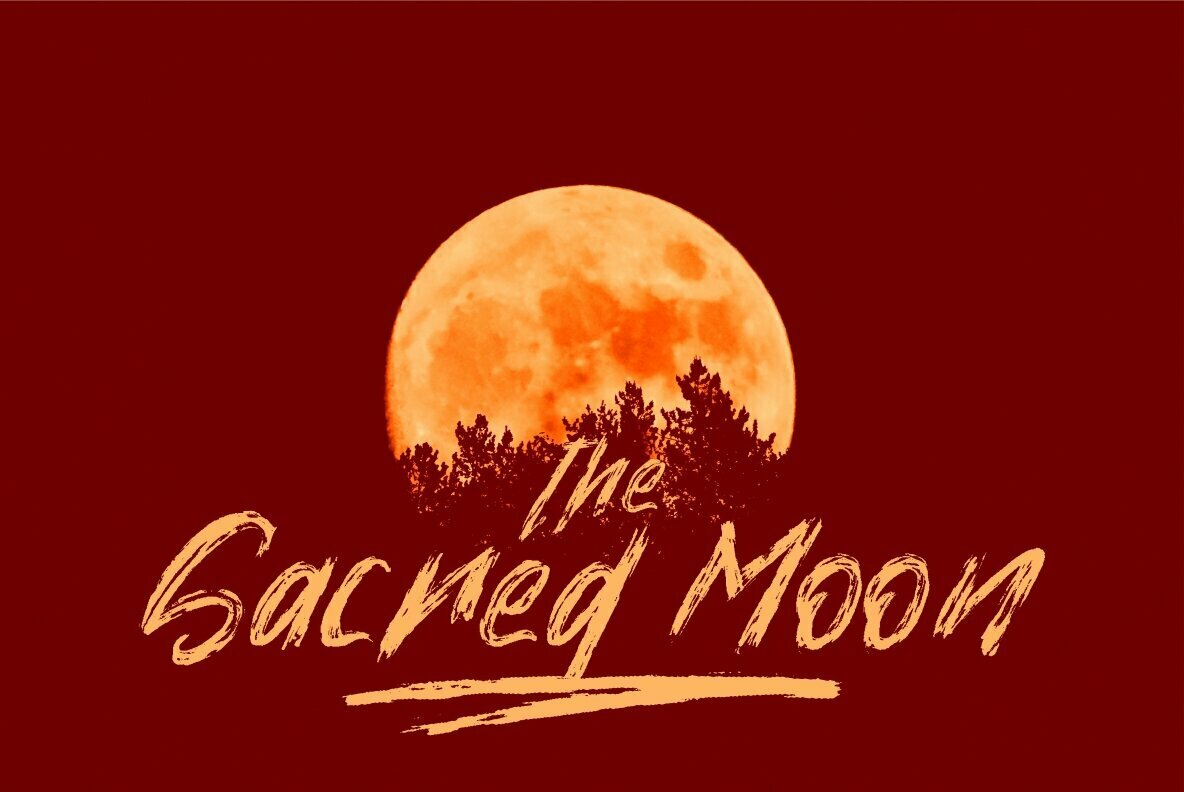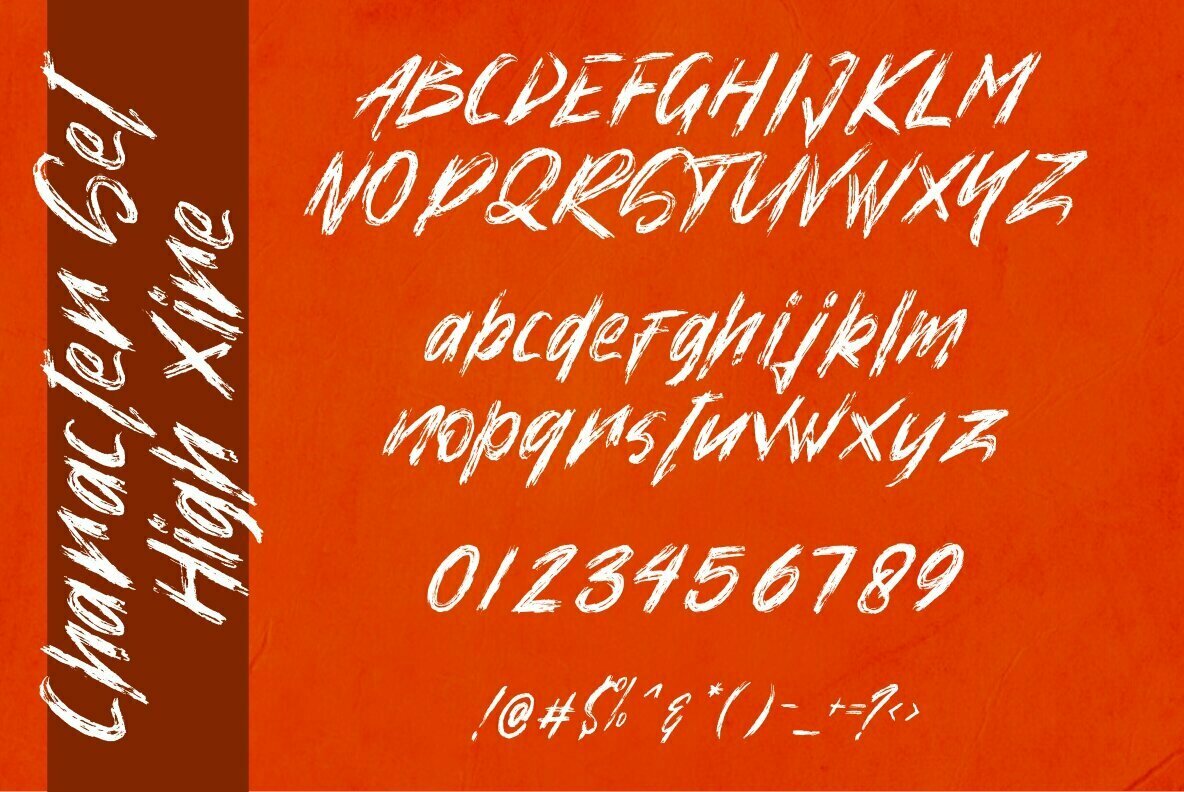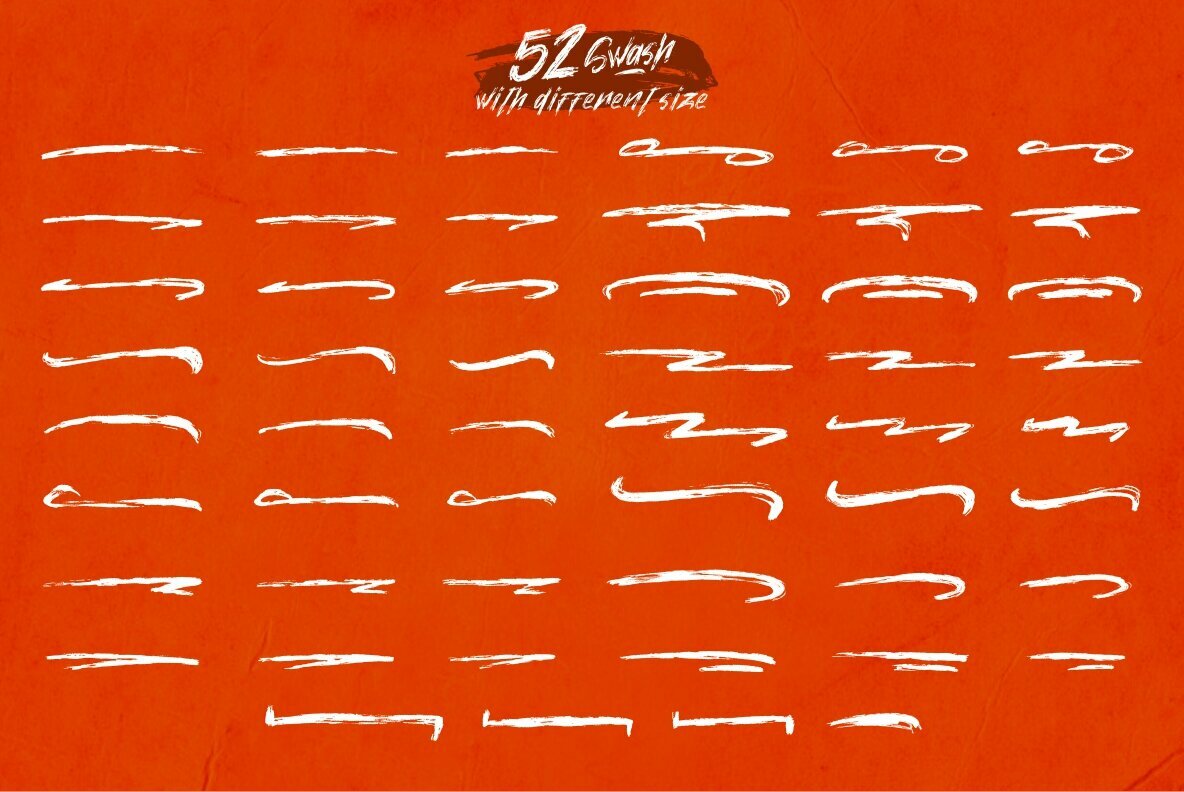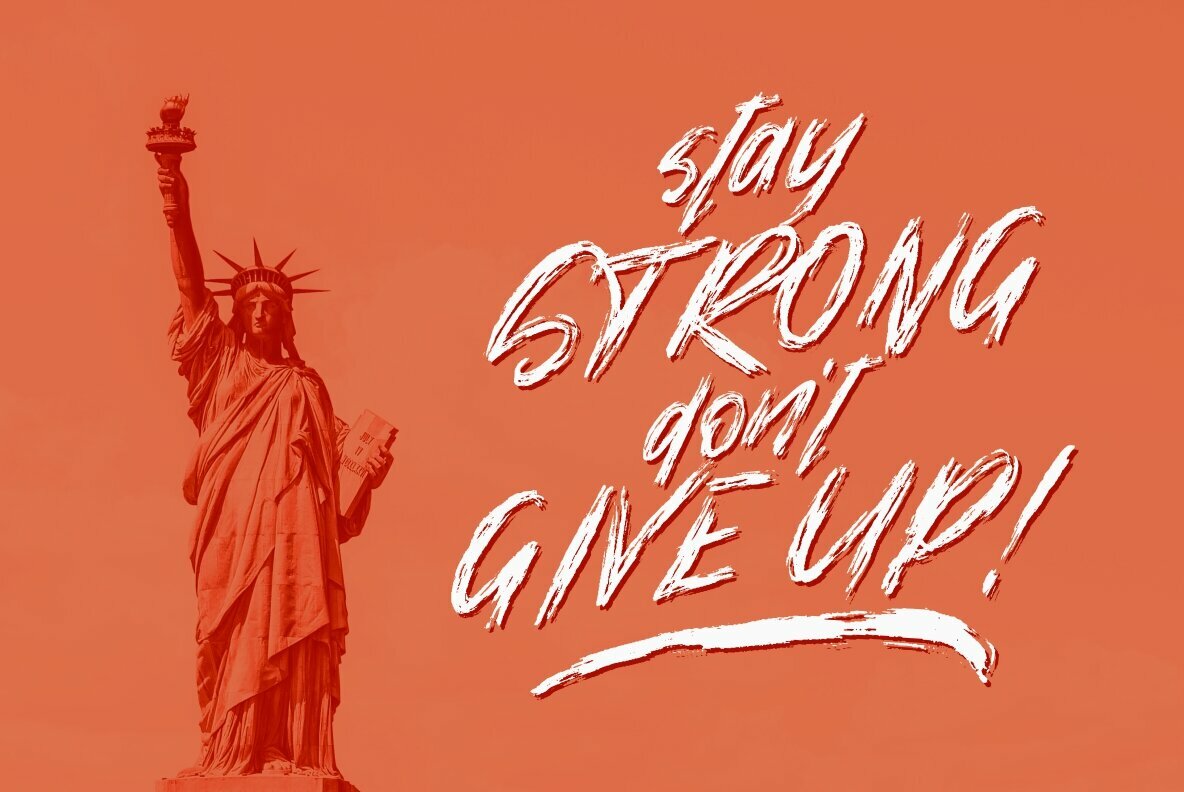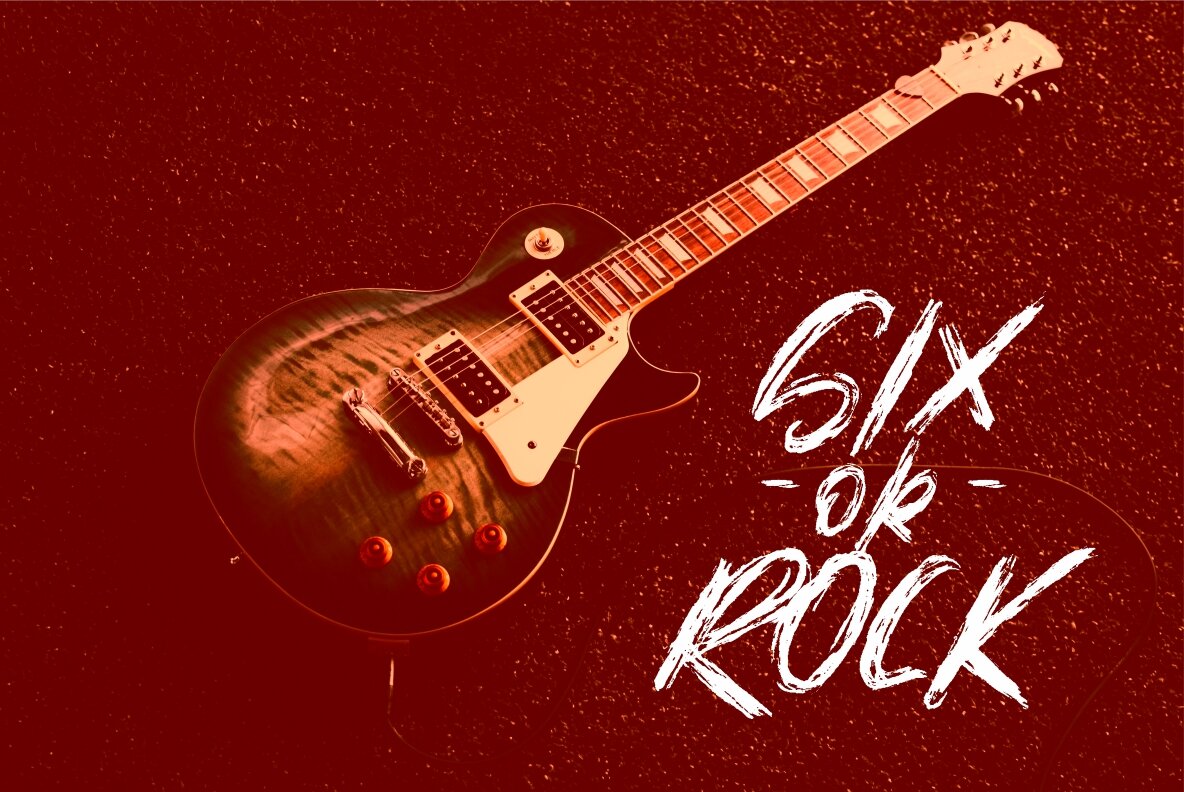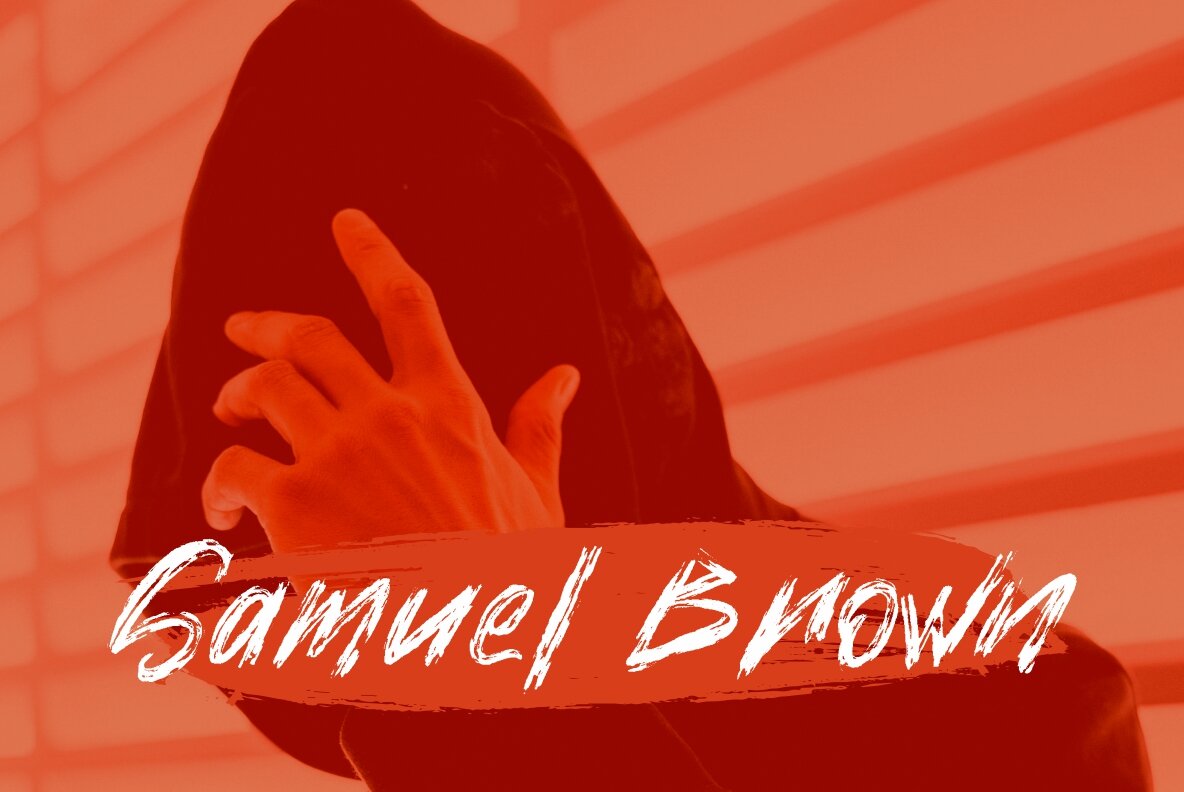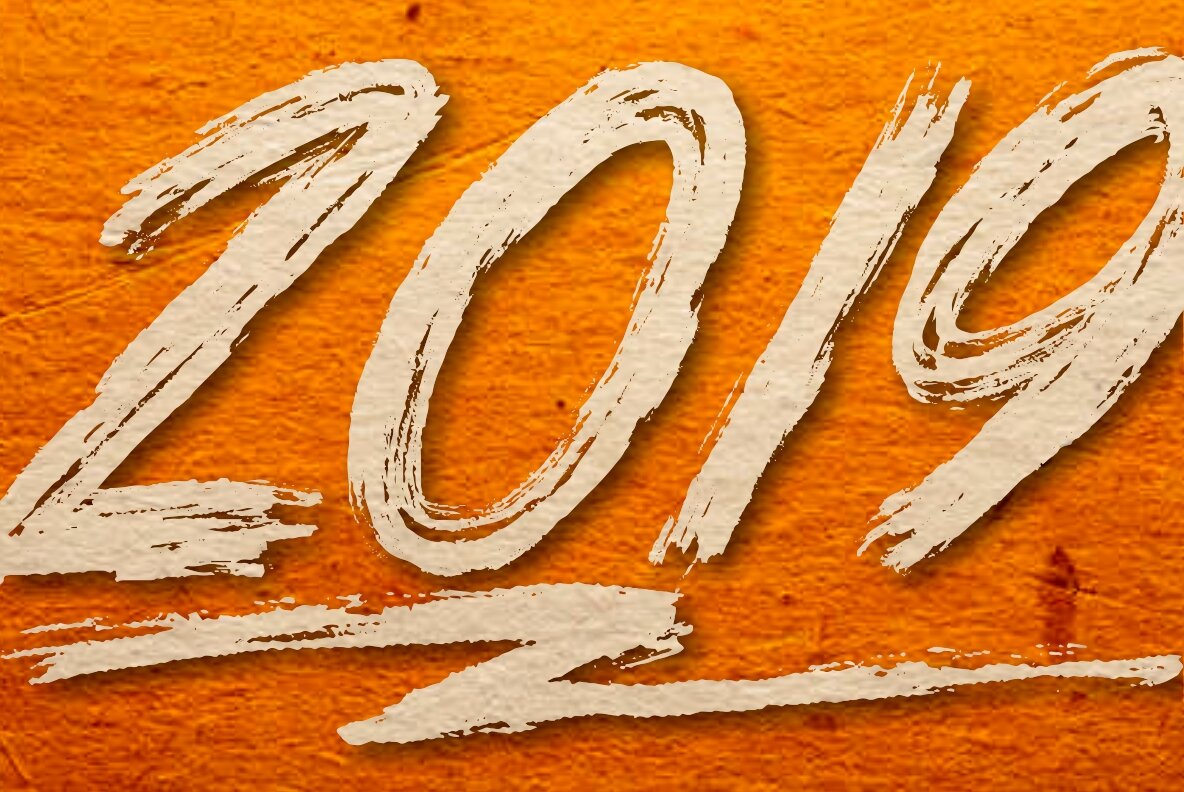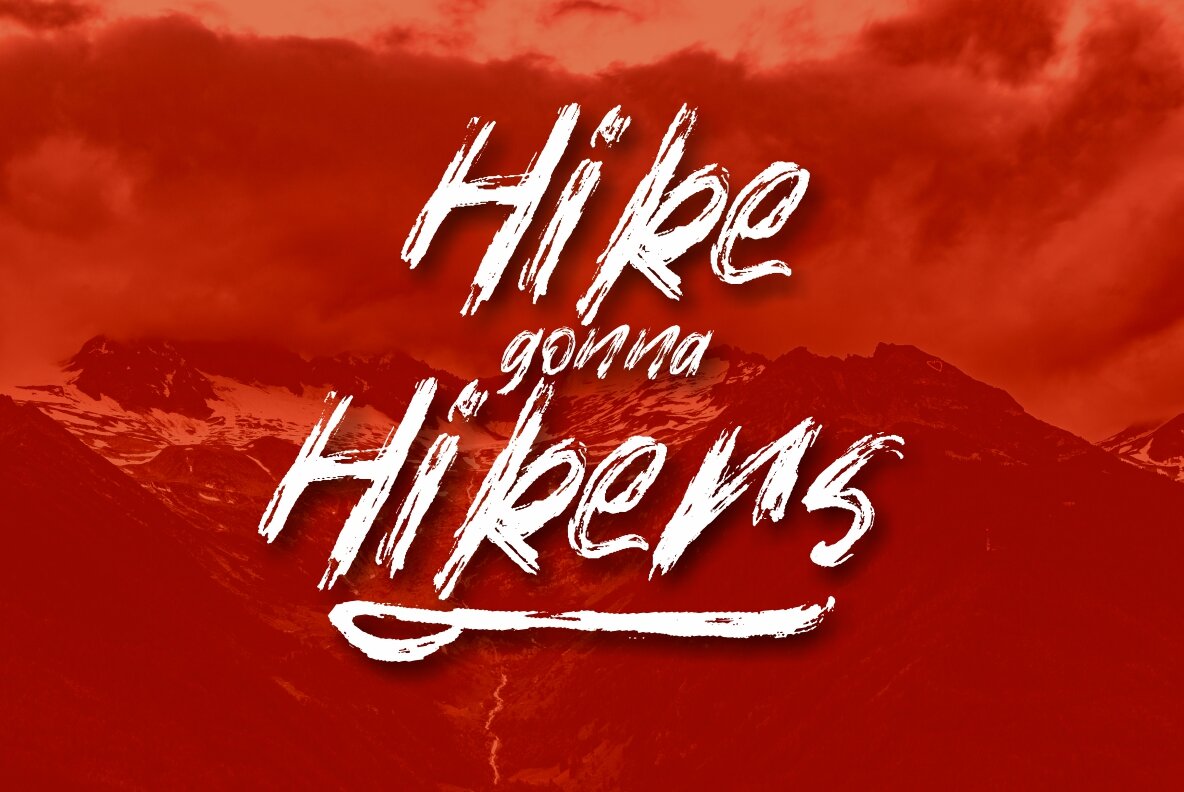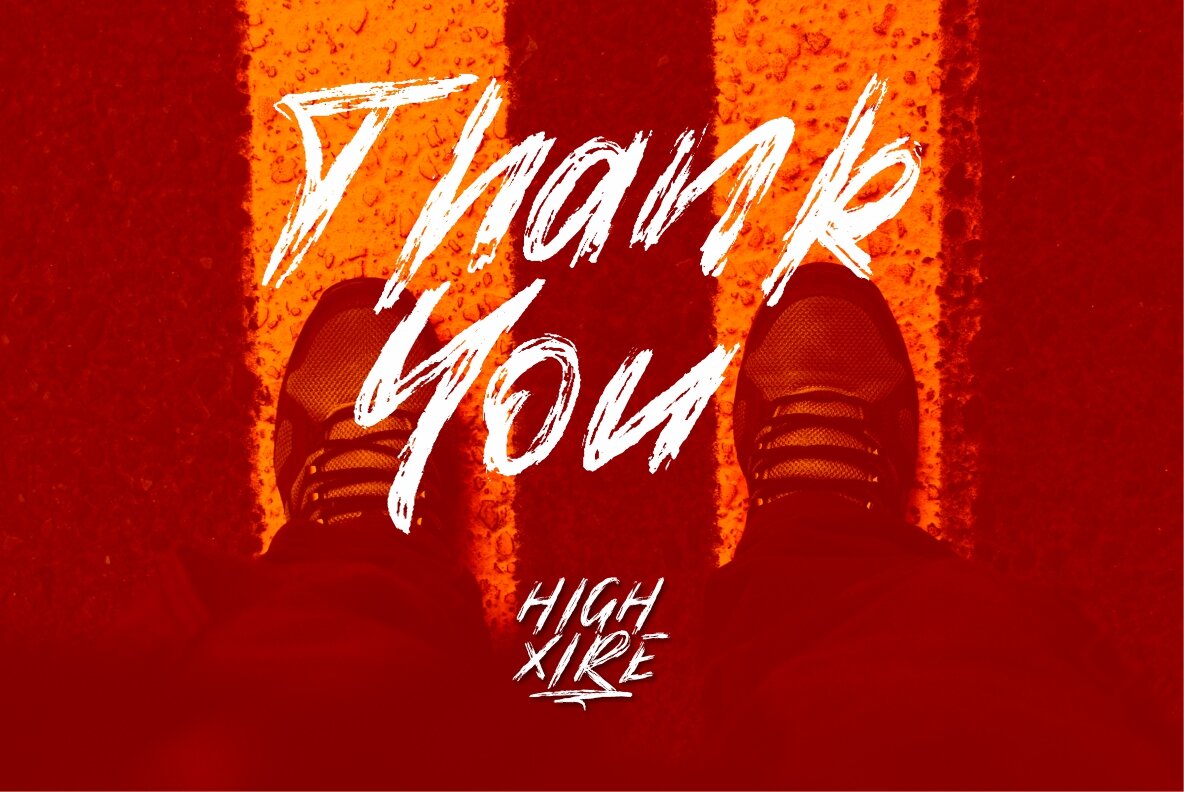
High Xire: Urban Edge for Logos and Branding
High Xire effortlessly melds contemporary urban flair with captivating curves, making it an ideal choice for those seeking a striking visual impact. This dry brush font elevates logo designs, brand imagery, handwritten quotes, product packaging, and social media posts with its unique, trendy aesthetics.
• Urban Style – Modern design that stands out in various applications.
• Versatility – Perfect for logos, merchandise, and more.
• Additional Swashes – Comes with 52 extra swashes for enhanced creativity.